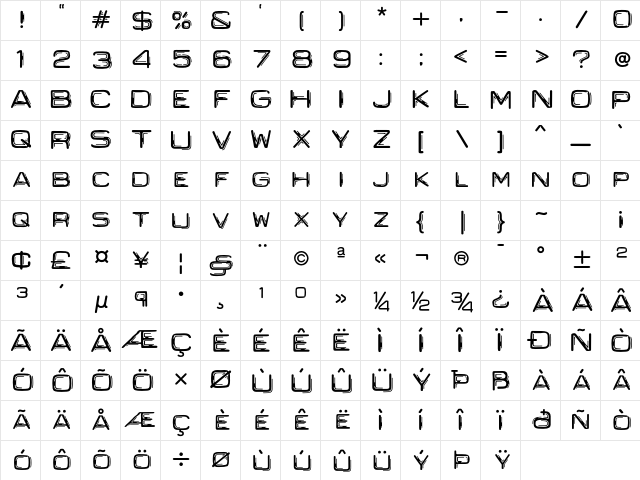
Recycle Alternate
Style: Alternate
Recycle Family
Recycle Alternate
Design Context for Recycle
Recycle is a composed and adaptable typeface that performs quietly and consistently across a wide range of design contexts.